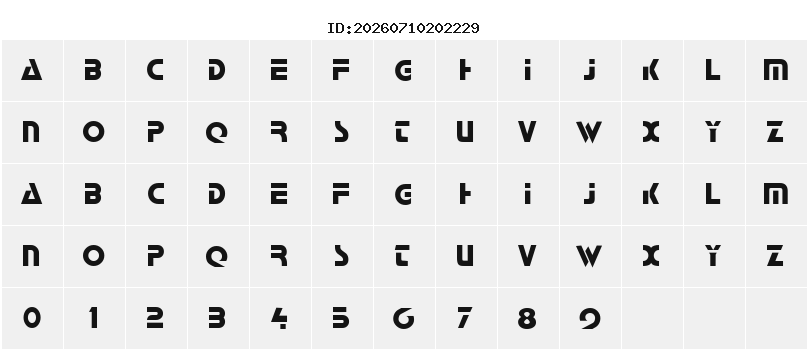
Galactican Preview
• Font Name: Galactican
• Full Font Name: Galactican
About Galactican.ttf
Galactican.ttf is a modern, elegant sans-serif font designed for ultimate readability and visual harmony. Perfect for branding, headlines, web design, and print materials.